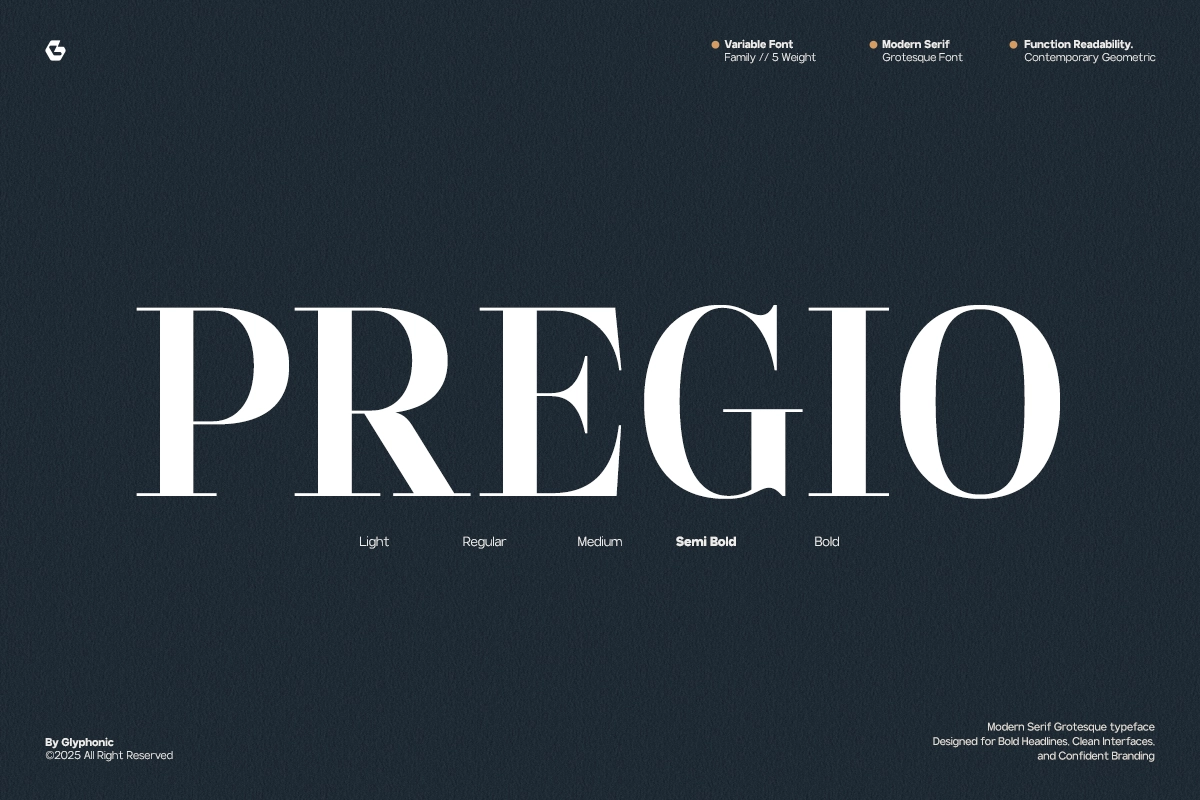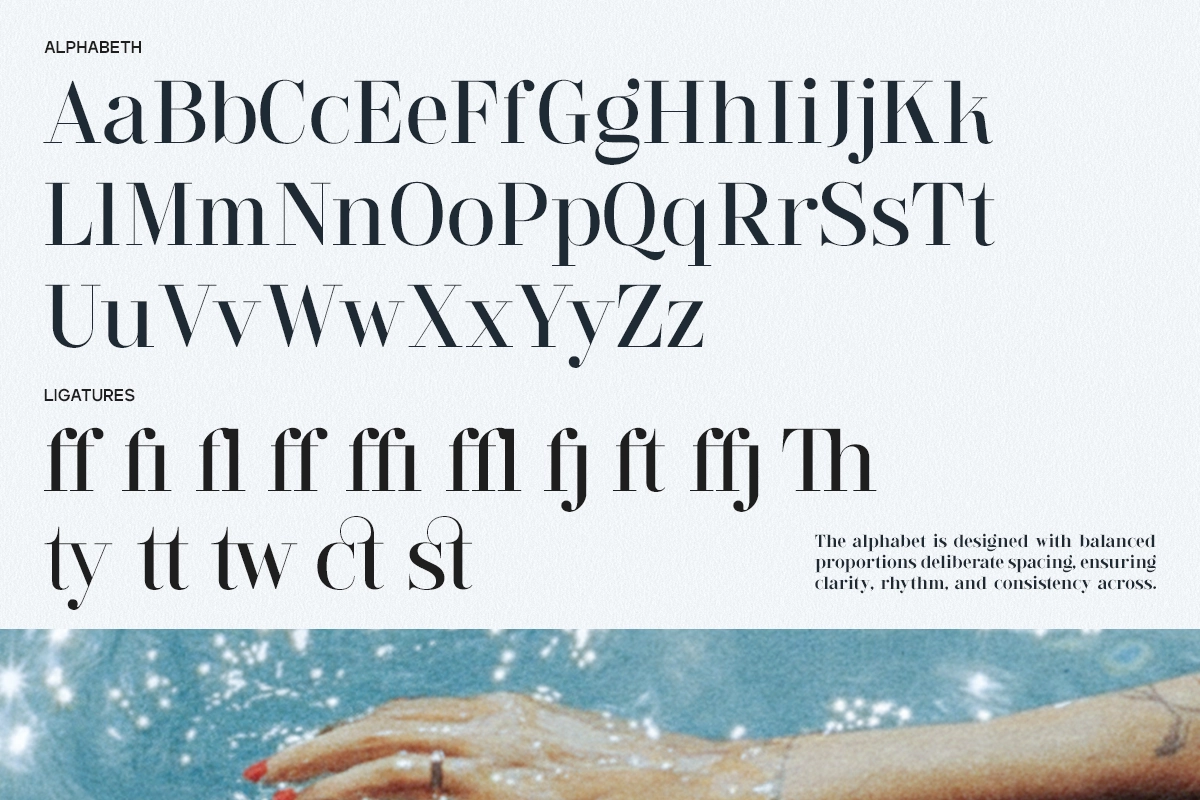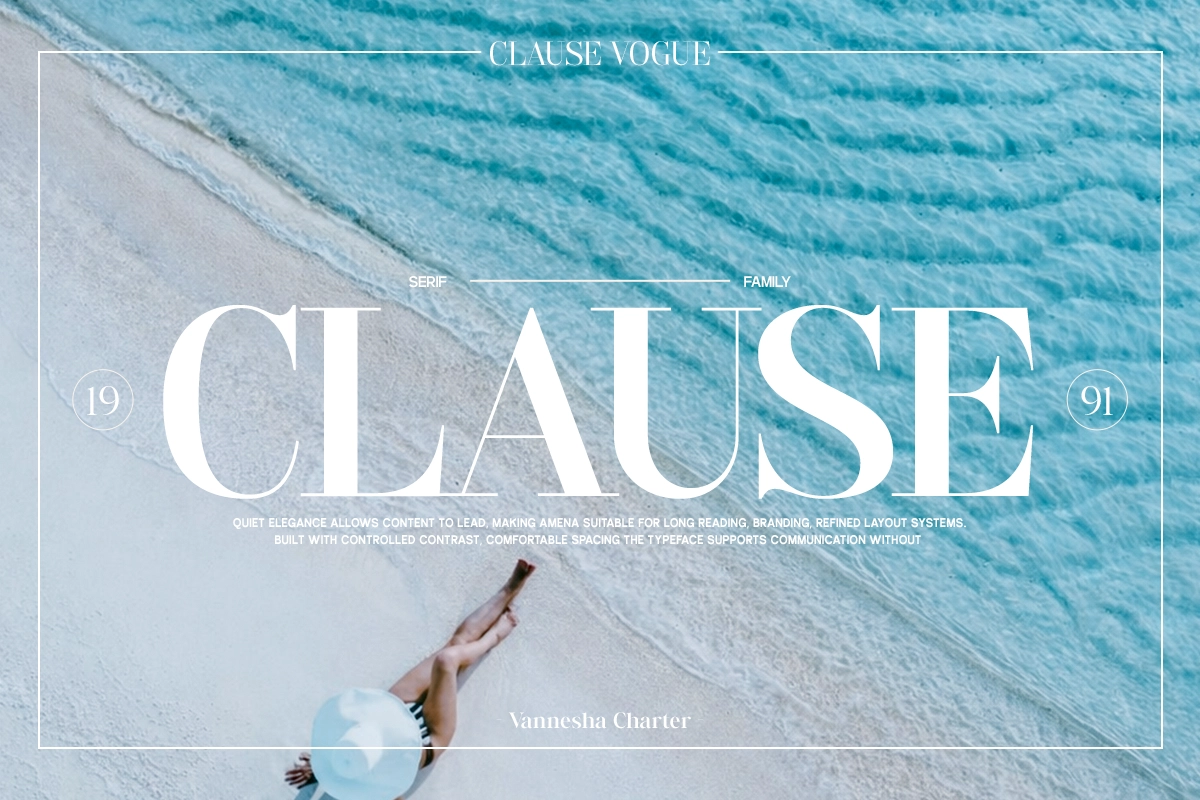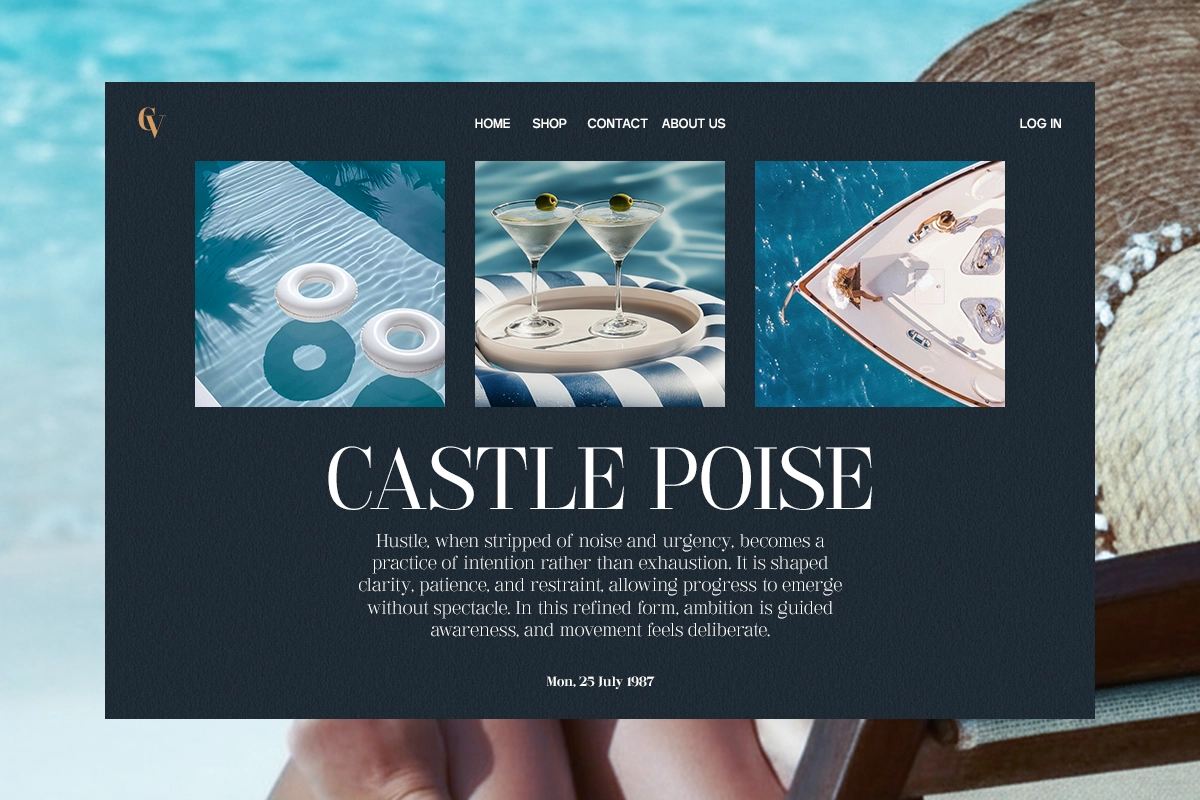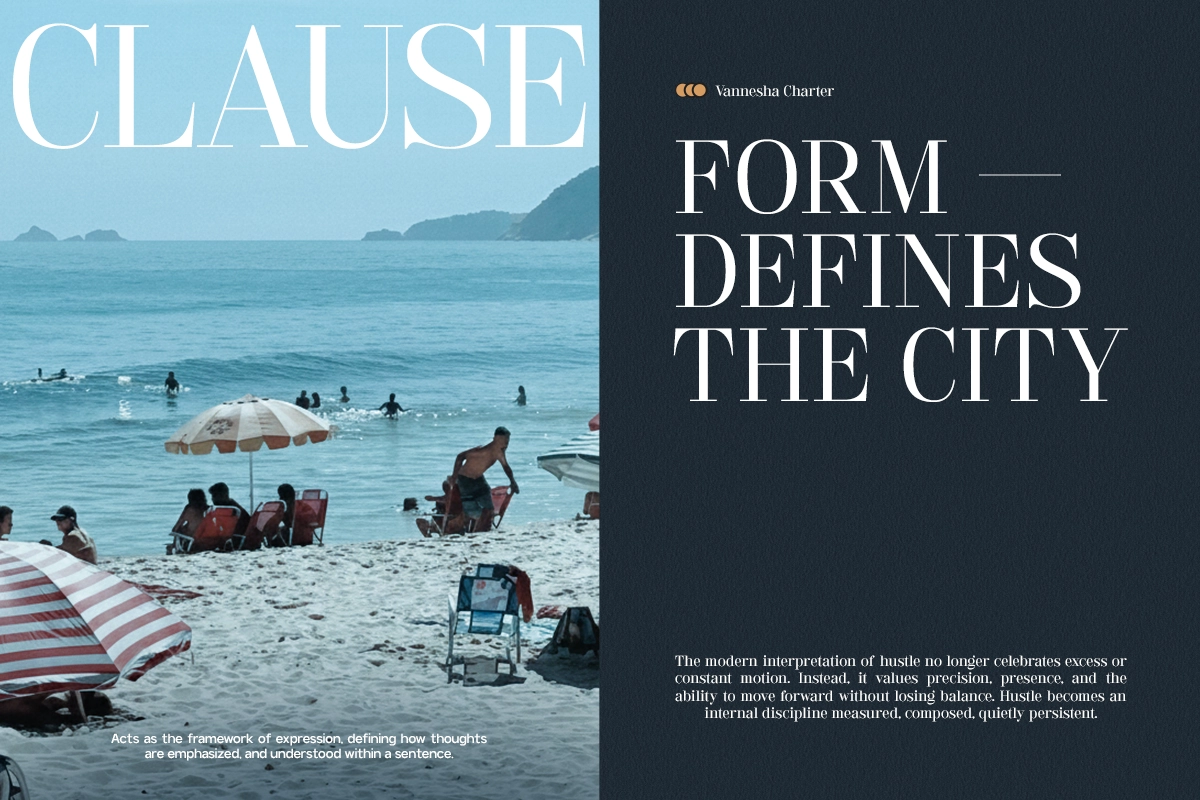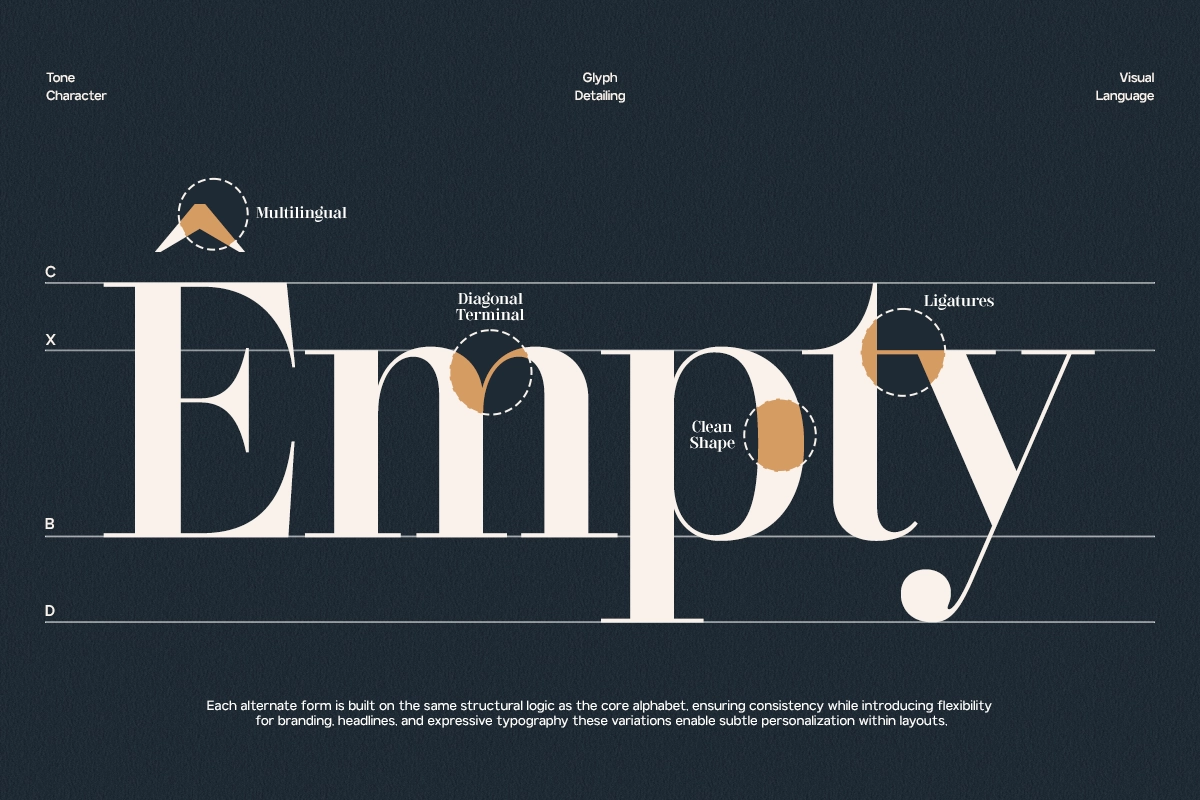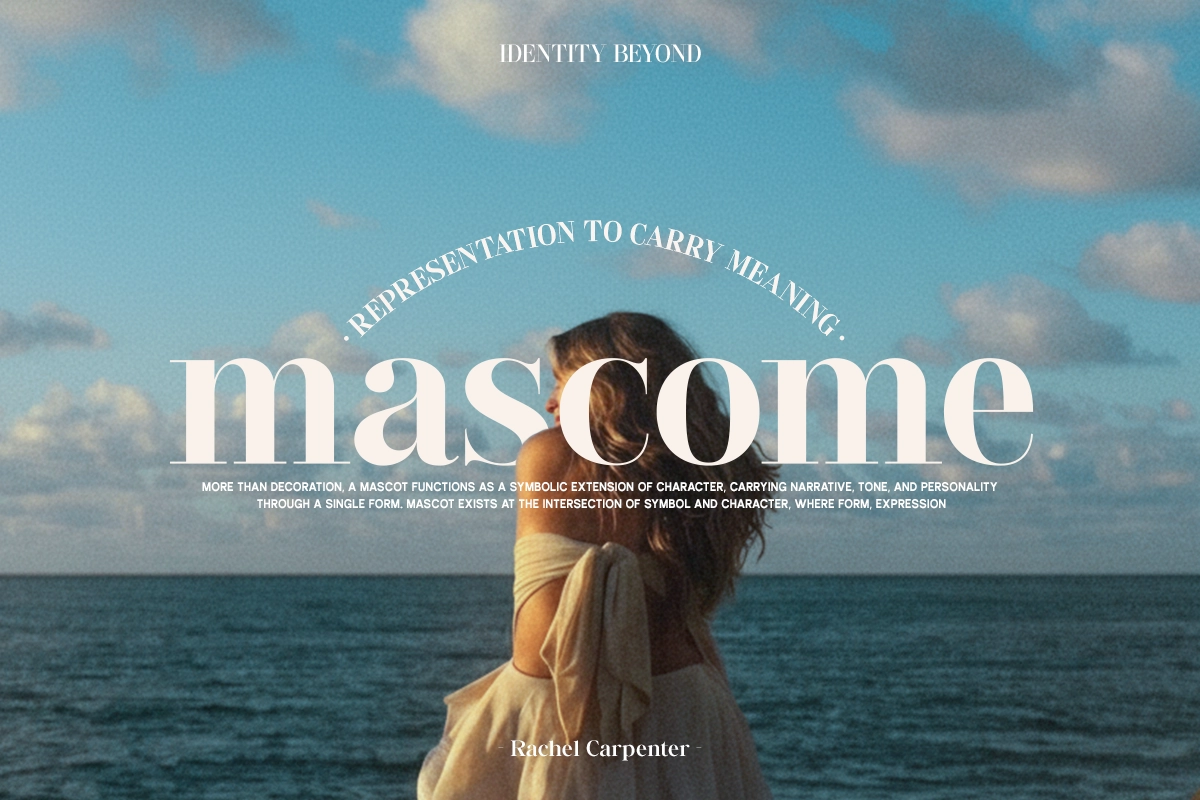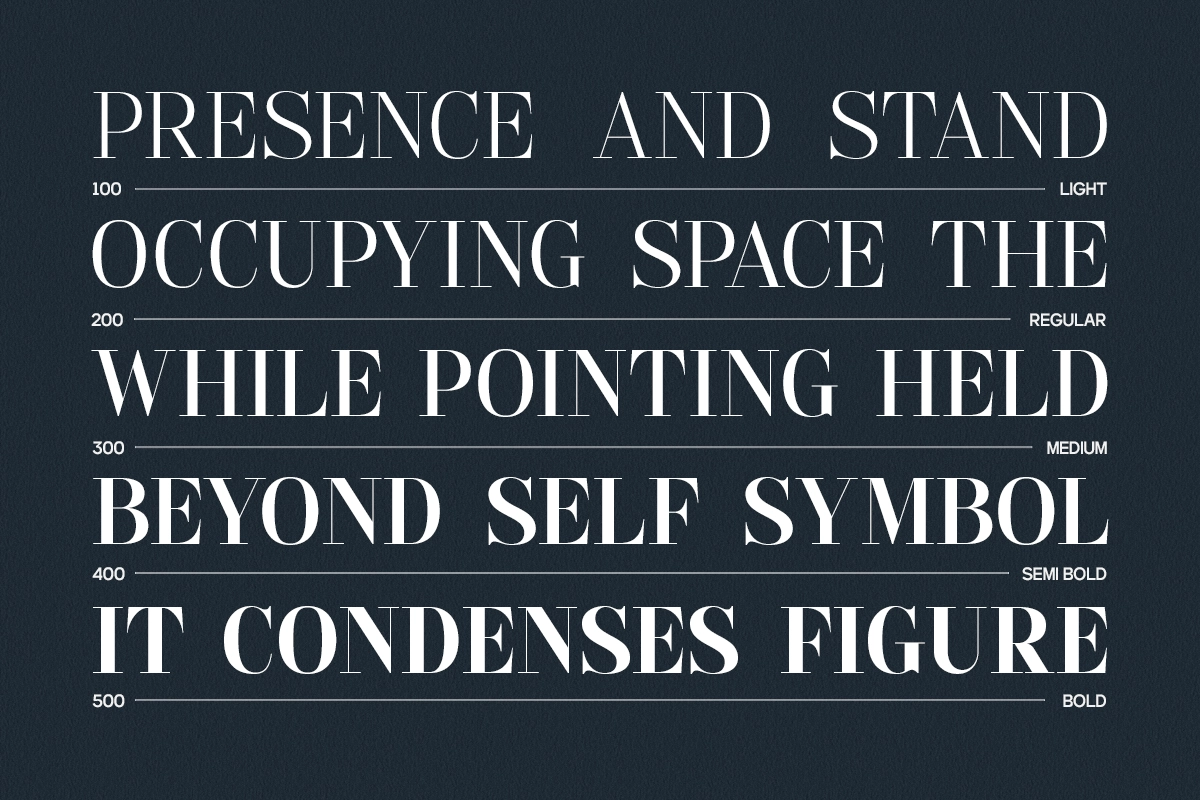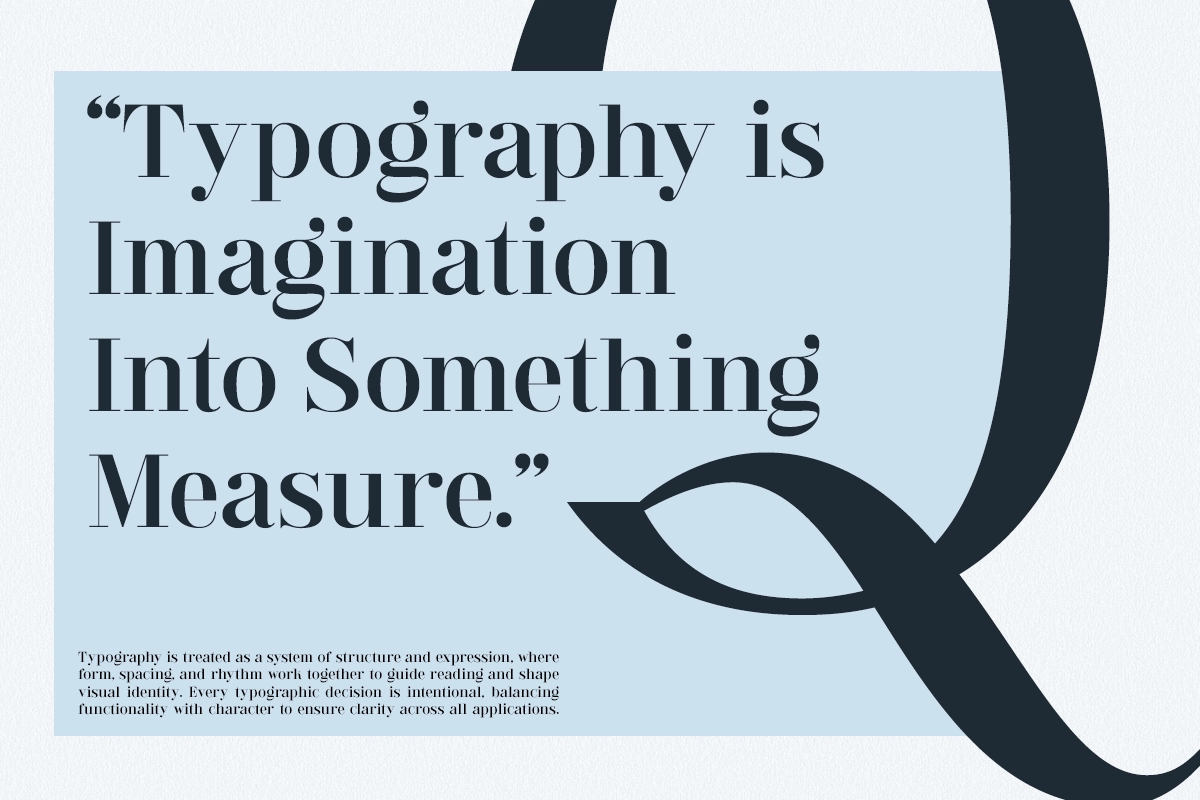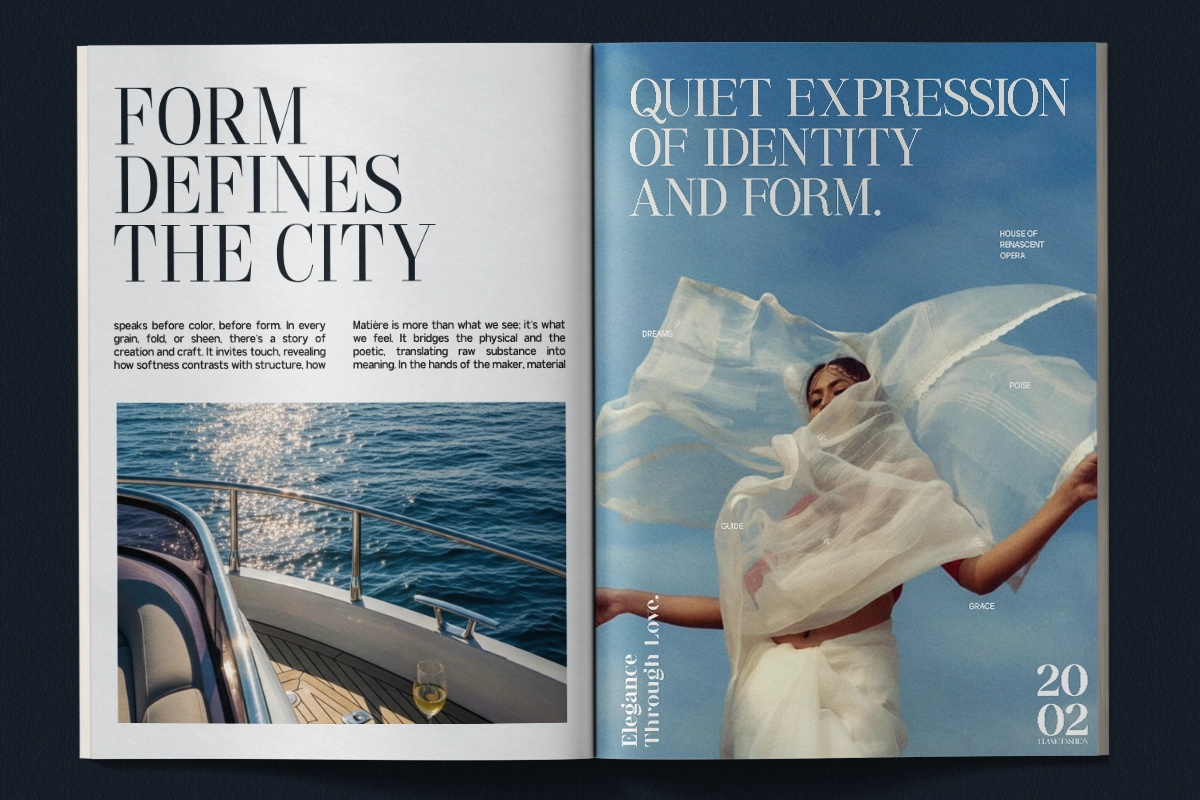
GC Pregio - Clean Serif Typeface
GC Pregio - Clean Serif Typeface is a sophisticated type family that combines classic form with modern design precision. Its sharp, minimal serifs and balanced letterforms bring clarity, elegance, and lasting versatility to any project.
Designed to achieve perfect readability and refined aesthetics, GC Pregio suits a wide range of uses — from luxury branding and magazine layouts to website headlines, product packaging, and editorial design.
Every style within this font family reflects clean proportions and well-crafted details, giving designers the flexibility to create polished visual hierarchies and cohesive brand identities. With its timeless design language, GC Pregio ensures your typography always feels professional, stylish, and effortlessly modern.
- Complete Font Family
- Clean & Balanced Serif Construction
- Multilingual Support (170+ Languages)